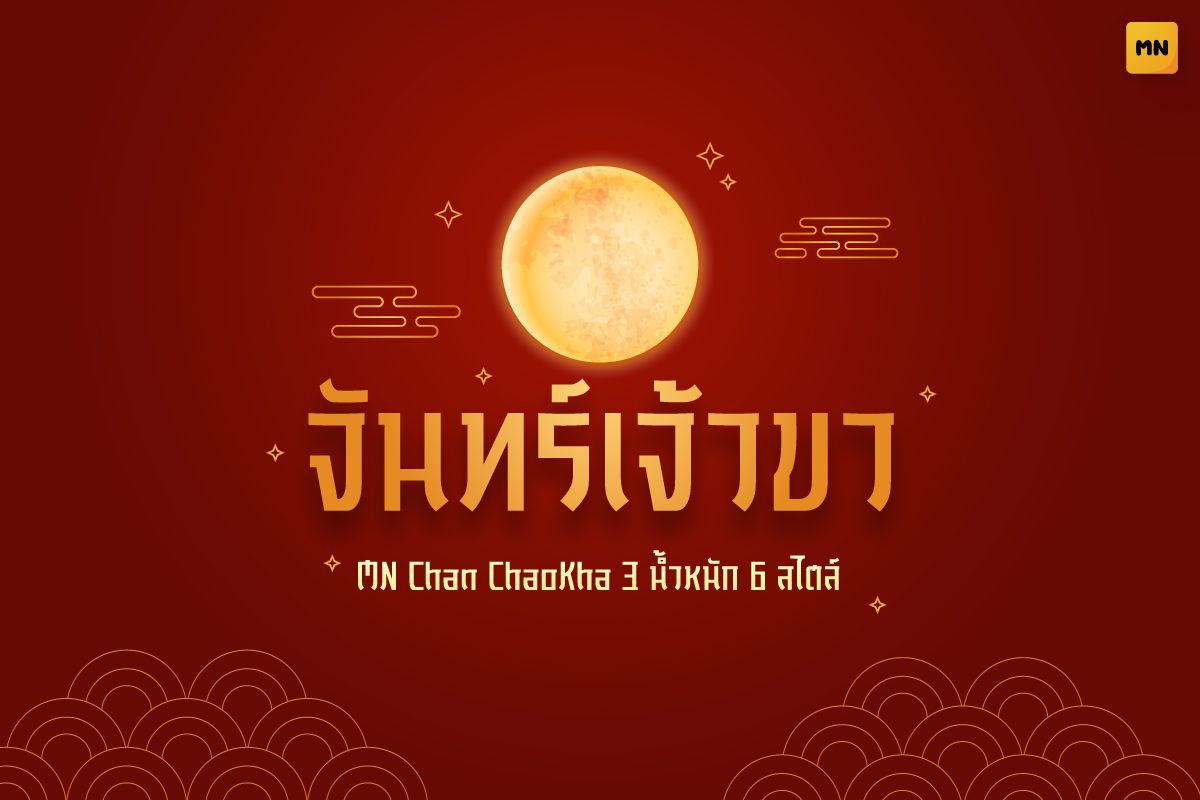
MN Chan ChaoKha Light Italic
A Thai display font inspired by Chinese festive aesthetics blended with modern Thai style. Its geometric balance and sharp edges create an elegant.